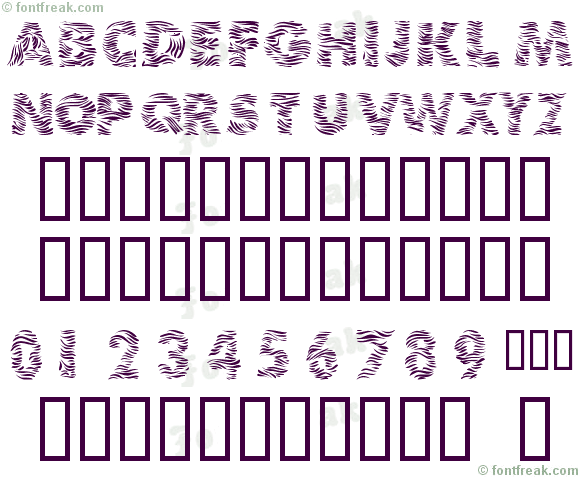
101! Zebra Print
About Zebra Print
The Zebra Print font by Nghtmvs101 is a striking decorative typeface that captures the essence of bold design. Its unique style showcases an eye-catching zebra stripe pattern, making it an excellent choice for projects that require a dynamic and adventurous touch. The font features a medium stroke weight with minimal contrast, allowing for easy readability while maintaining its distinctive flair. The spacing is well-balanced, ensuring that each letter flows seamlessly into the next, which is particularly beneficial for larger text displays.
This font is perfect for a variety of creative applications. It shines in contexts such as eye-catching posters for music festivals, where its vibrant style can draw attention and evoke excitement. Additionally, it can be effectively used in fashion branding, especially for clothing lines that celebrate animal prints or bold aesthetics. Zebra Print is also a fantastic choice for children's book covers, where playful and adventurous themes are prevalent. Small business owners in the retail sector could utilize it for product labels, giving their items a fun and memorable identity. Moreover, graphic designers seeking to create unique social media graphics will find this font to be a valuable asset in their toolkit.
The target audience for Zebra Print includes graphic designers, small business owners, and content creators looking to make a statement with their visual communications. The font’s playful yet bold character allows it to resonate with those who wish to stand out in a crowded marketplace.